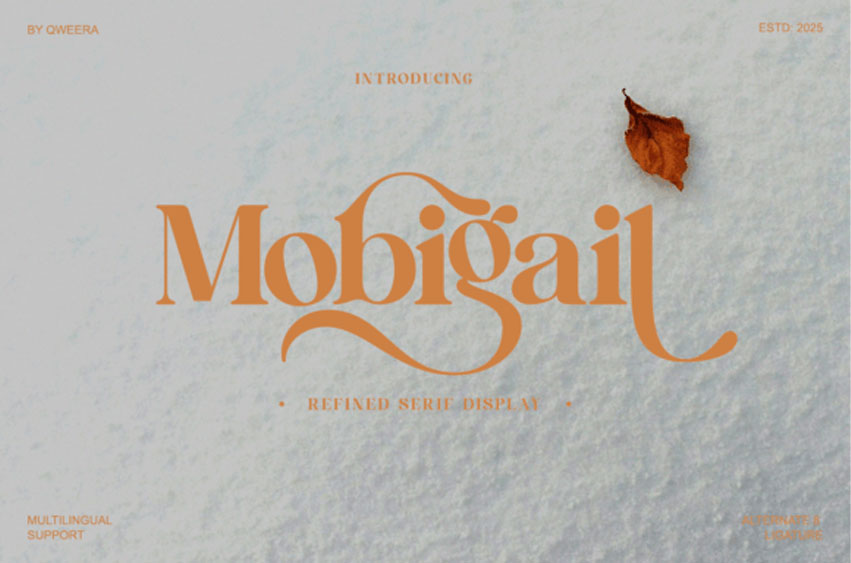
Mobigail Font
Mobigail Font is a Refined Serif Display font that effortlessly merges classic elegance with contemporary, fluid curves to deliver a truly stunning aesthetic.
This exquisite Mobigail font stands out with its perfect balance of high-contrast serifs and captivating swash alternates, particularly visible on the lower-case ascenders and descenders, which gracefully flow and dip like a signature. Its refined, warm, and inviting character makes it a powerhouse for luxury branding and high-end editorial design.
The extensive multilingual support and multitude of alternate and ligature options ensure that the Mobjigail typeface provides incredible versatility and a bespoke, hand-crafted feel for any logotype or headline. Choose the Mobigail font to give your projects—from wedding invitations to fashion magazines—a premium, sophisticated, and utterly unique voice that resonates with timeless style.
The font is also PUA-encoded, ensuring effortless access to all glyphs, swashes, and alternate characters to help you customize your creations with ease.